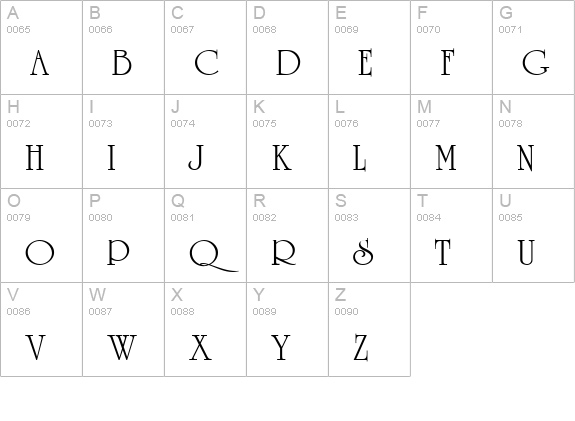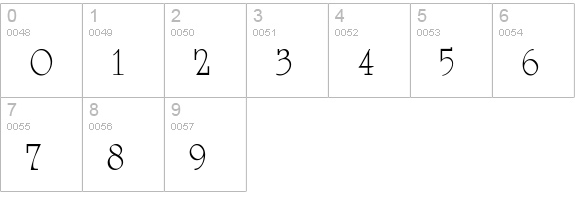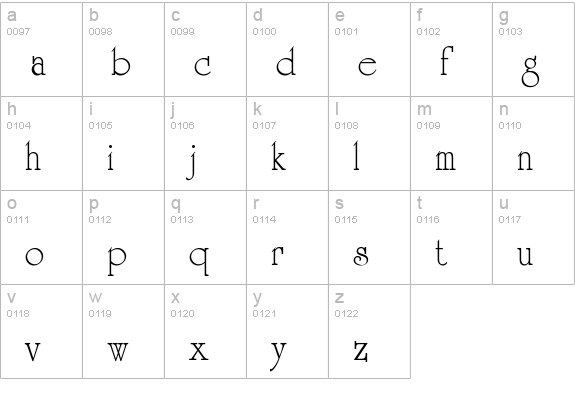
Unicorn Font Details
Unicorn font is a captivating and enchanting typeface that adds a touch of magic to any design project. Its graceful curves and whimsical details evoke a sense of wonder and fantasy, making it perfect for children's books, invitations, branding, and more. This charming font offers a wide range of versatile letterforms that can be used in both headline and body text, allowing for endless creative possibilities. Whether you're looking to create a fairytale-inspired logo or add a whimsical touch to a greeting card, Unicorn font is sure to captivate your audience. What makes Unicorn font even more magical is that it is freely available to download at FontsMarket.com. This means that you can easily access this delightful typeface without spending a dime. Its availability for free allows aspiring designers, students, and hobbyists to unleash their creativity and bring their visions to life without any financial barriers. With its captivating charm and free accessibility, Unicorn font is a must-have for any designer's toolkit. Download it today at FontsMarket.com and let the magic unfold in your designs.